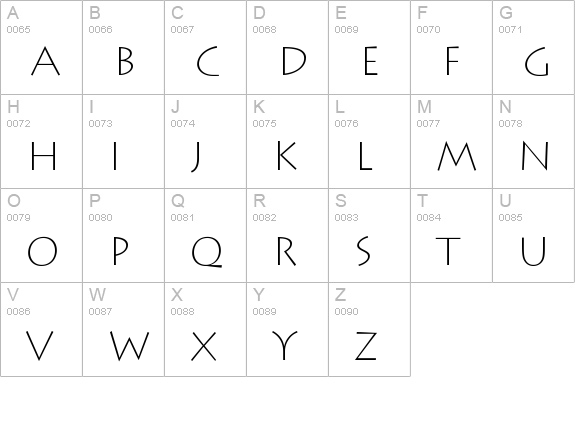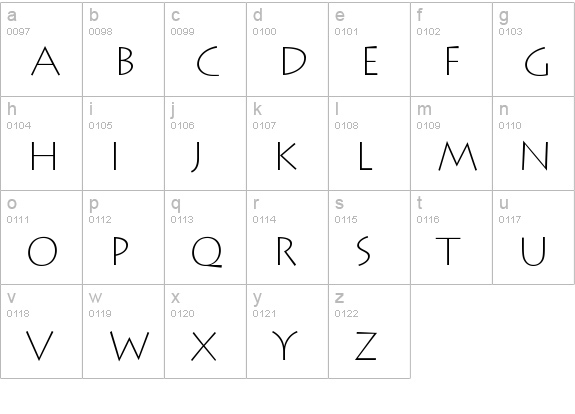
Lithos ExtraLight Font Details
Lithos ExtraLight is an airy, ultra-refined variant in the Lithos typeface family \xE2\x80\x94 well suited to minimalist headlines and refined display use.
Lithos ExtraLight is a stunning and elegant typeface that exudes sophistication and modernity. With its delicate and refined letterforms, this font is perfect for adding a touch of class to any design project. The slim and graceful strokes of Lithos ExtraLight make it ideal for use in headings, titles, and other display purposes. What sets Lithos ExtraLight apart is not just its aesthetic appeal, but also its versatility. Whether you're designing a sleek website, creating a stylish logo, or crafting a sophisticated invitation, this font is sure to elevate your work to new heights. And the best part? Lithos ExtraLight is completely free to download at FontsMarket.com. Now you can enjoy the beauty and elegance of this exquisite typeface without breaking the bank. Don't miss out on this amazing opportunity to enhance your designs with Lithos ExtraLight – download it today and let your creativity shine!